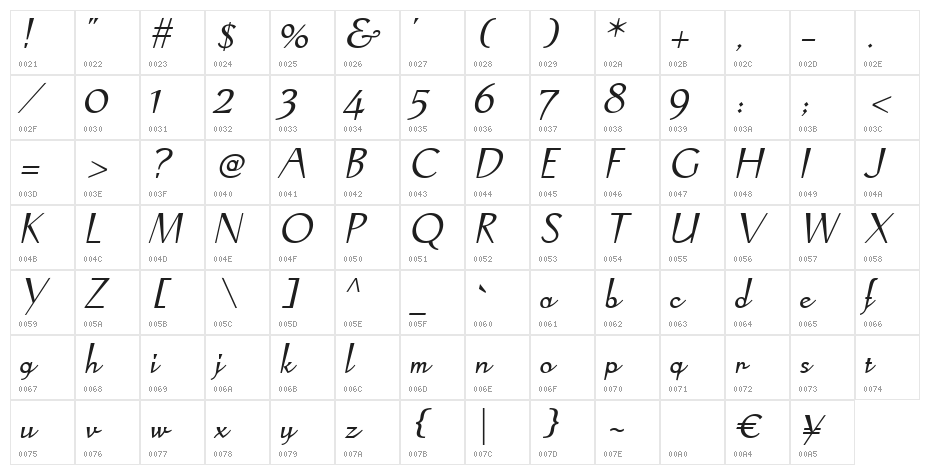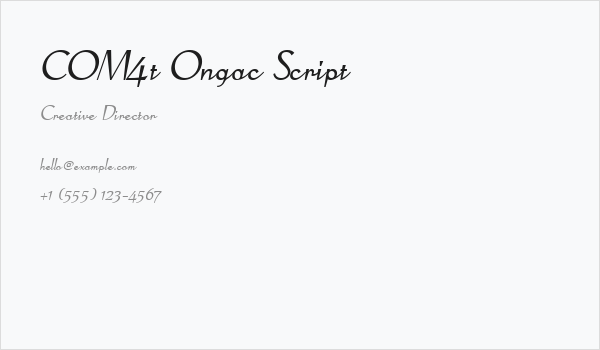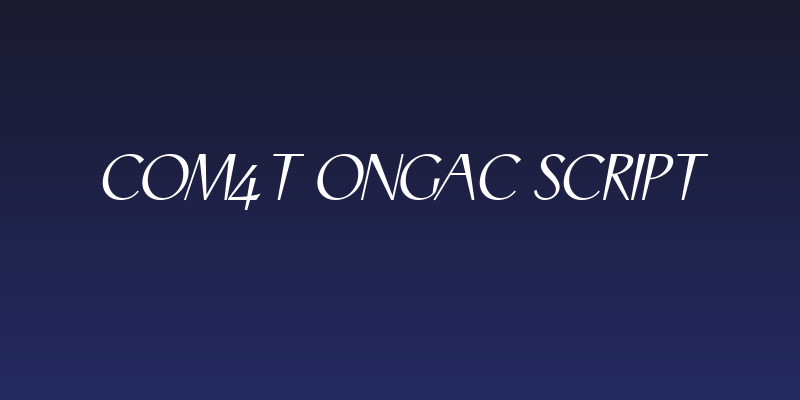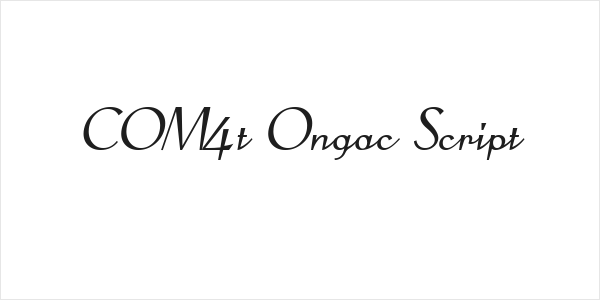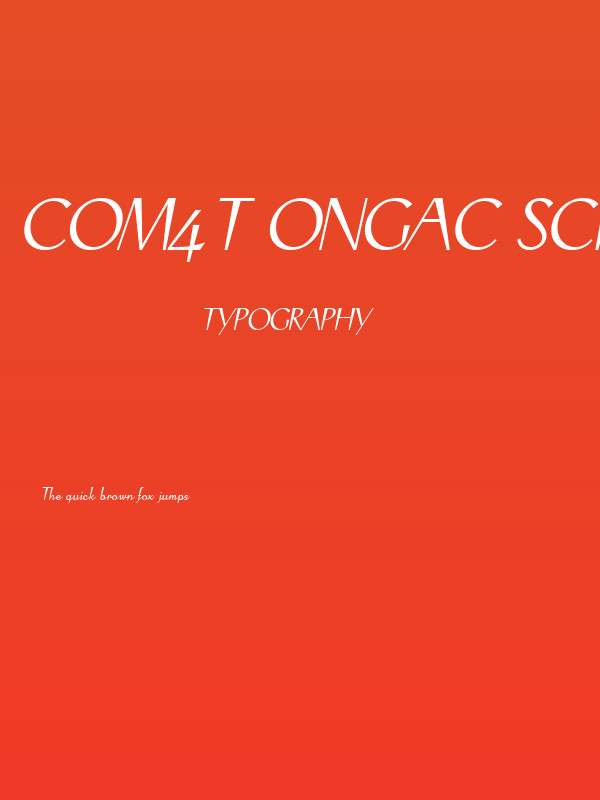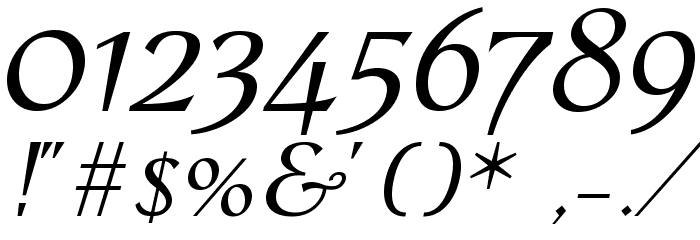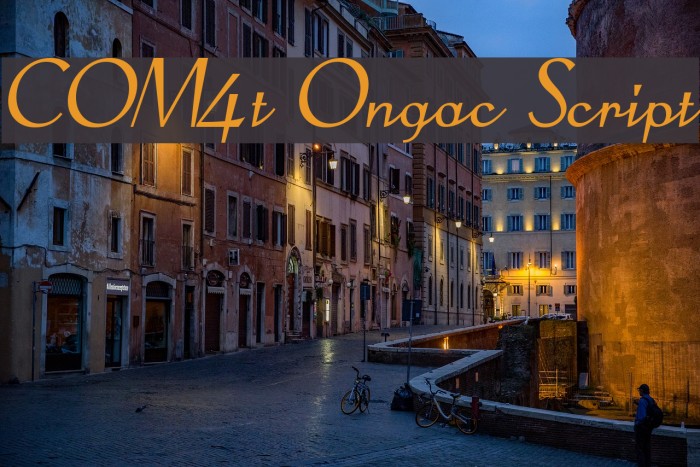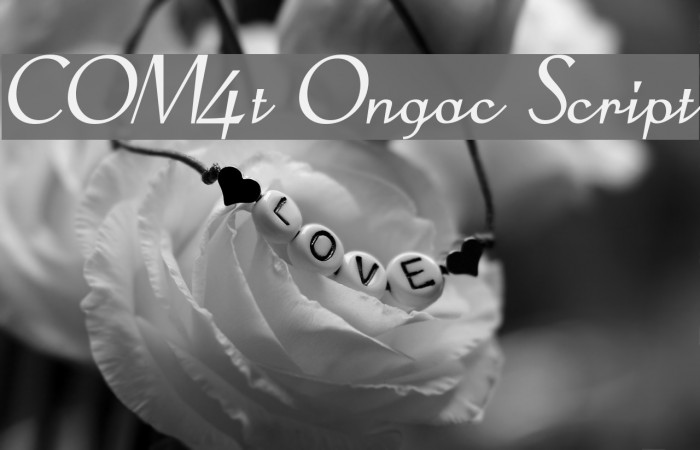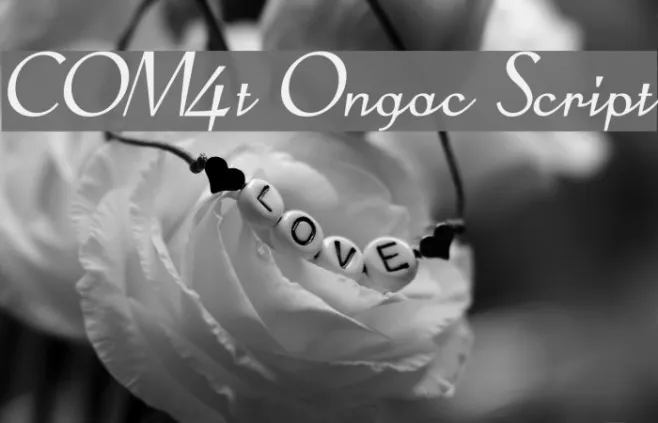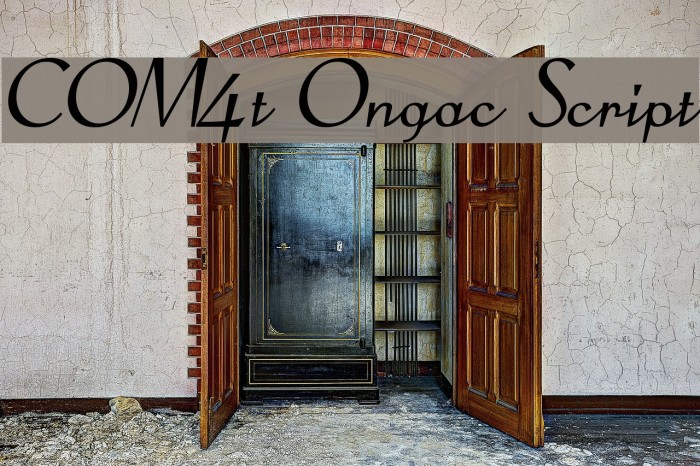
COM4t Ongac Script Font
COM4t Ongac Script Description
This font features an elegant and flowing script style with a modern touch. The uppercase letters are tall and slender, with a slight slant that adds a dynamic feel. The lowercase letters are more fluid, with smooth curves and a consistent stroke width that enhances readability. The numerals are bold and slightly rounded, providing a strong visual presence. Special characters are designed with the same attention to detail, ensuring they complement the overall aesthetic. This font exudes sophistication and is perfect for projects that require a touch of elegance.
| Proposed Projects | Ideal for wedding invitations, luxury branding, elegant packaging, and high-end editorial design. |